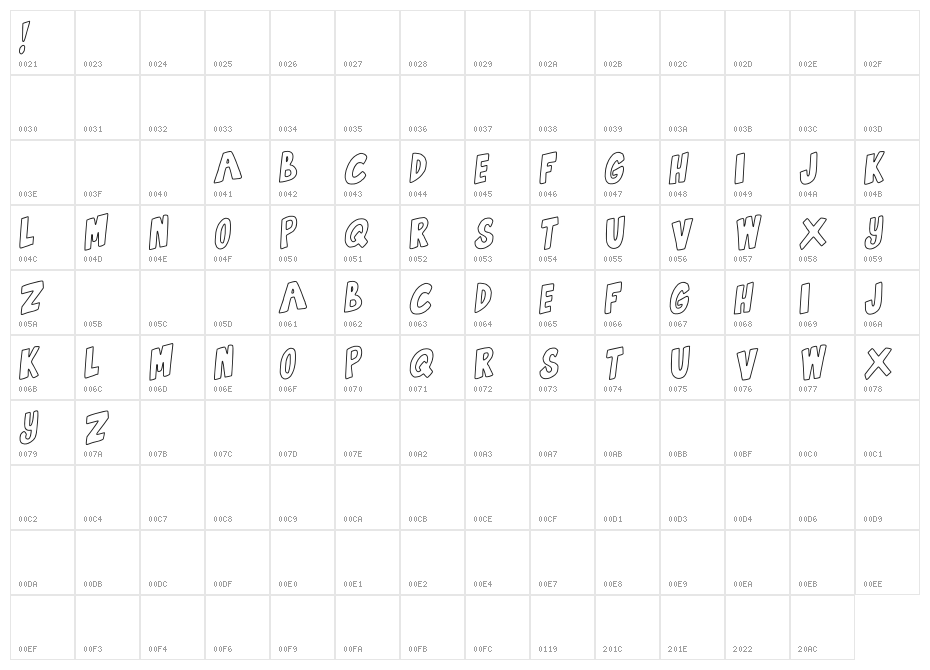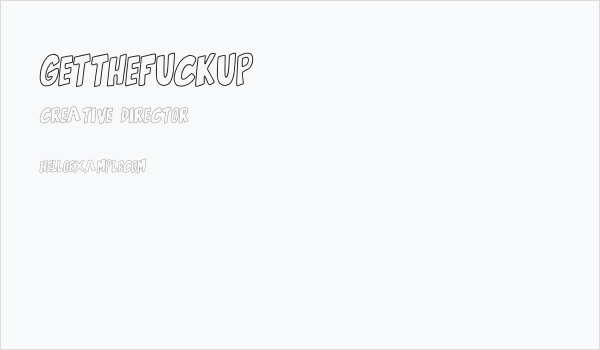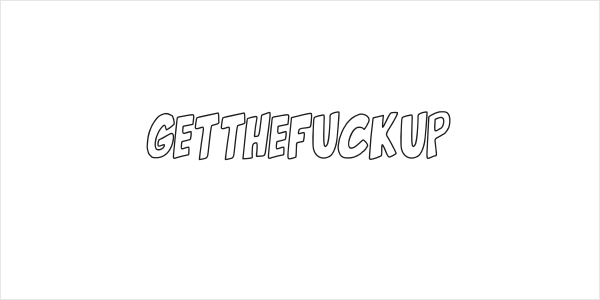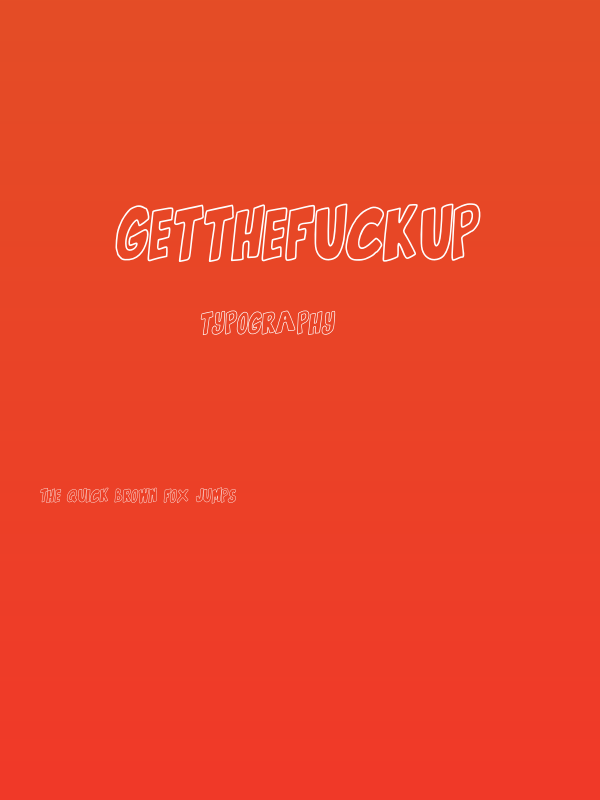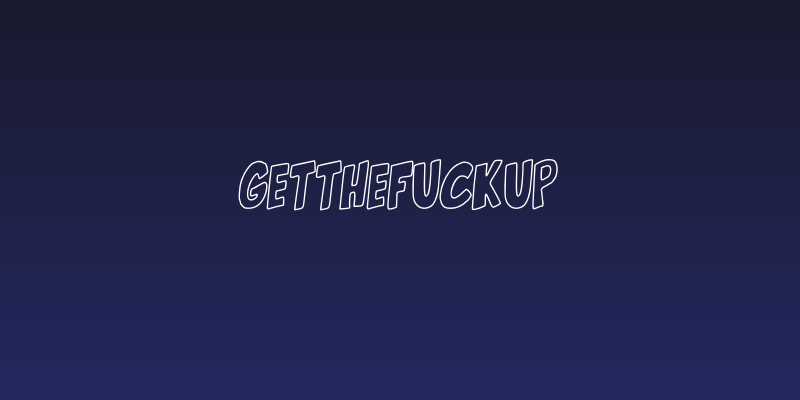
Getthefuckup Font
Getthefuckup Description
This font features bold, playful characters with a hand-drawn aesthetic. The letters are outlined, giving them a cartoonish and dynamic appearance. The uppercase letters are prominent and slightly tilted, adding a sense of movement and energy. The font lacks lowercase letters and numbers, focusing instead on a strong display style. The special characters are consistent with the overall design, maintaining the bold outline and playful style. This font is ideal for projects that require a fun and engaging visual impact.
| Overall Style | Playful, Cartoonish |
| Proposed Projects | Perfect for children's books, comic strips, playful branding, and eye-catching posters. |